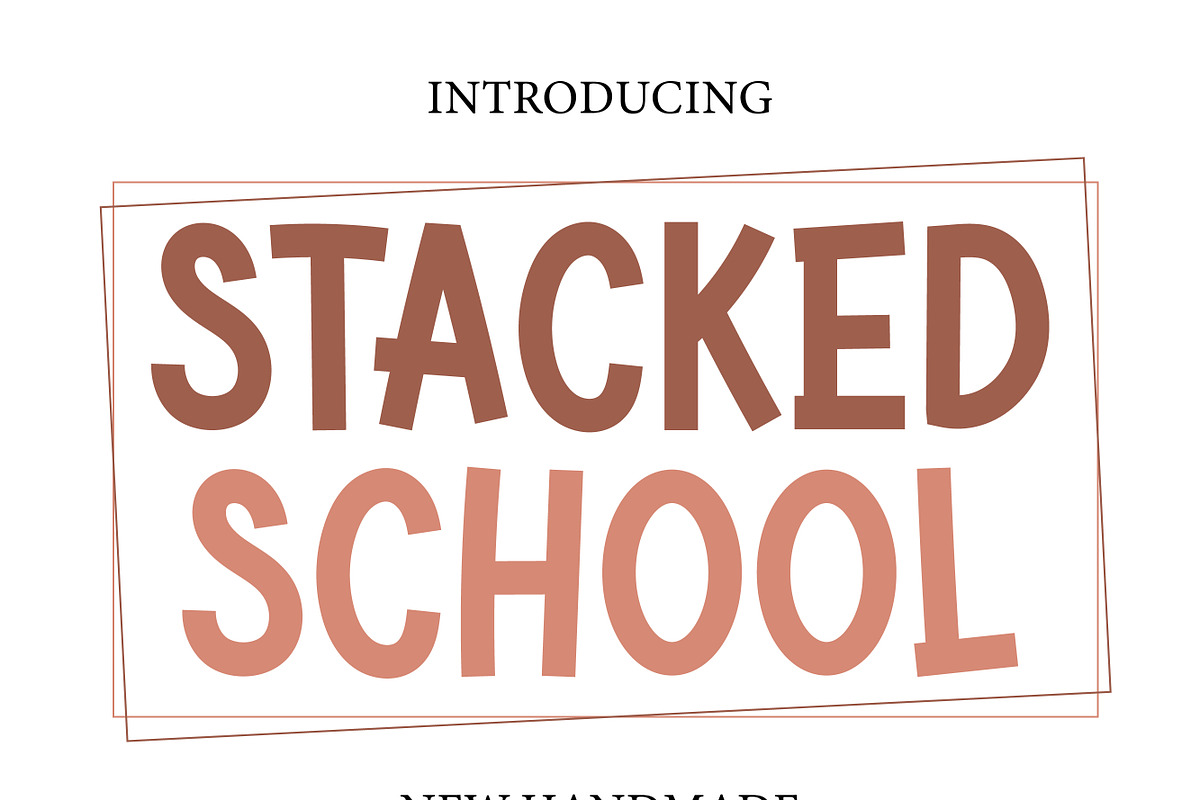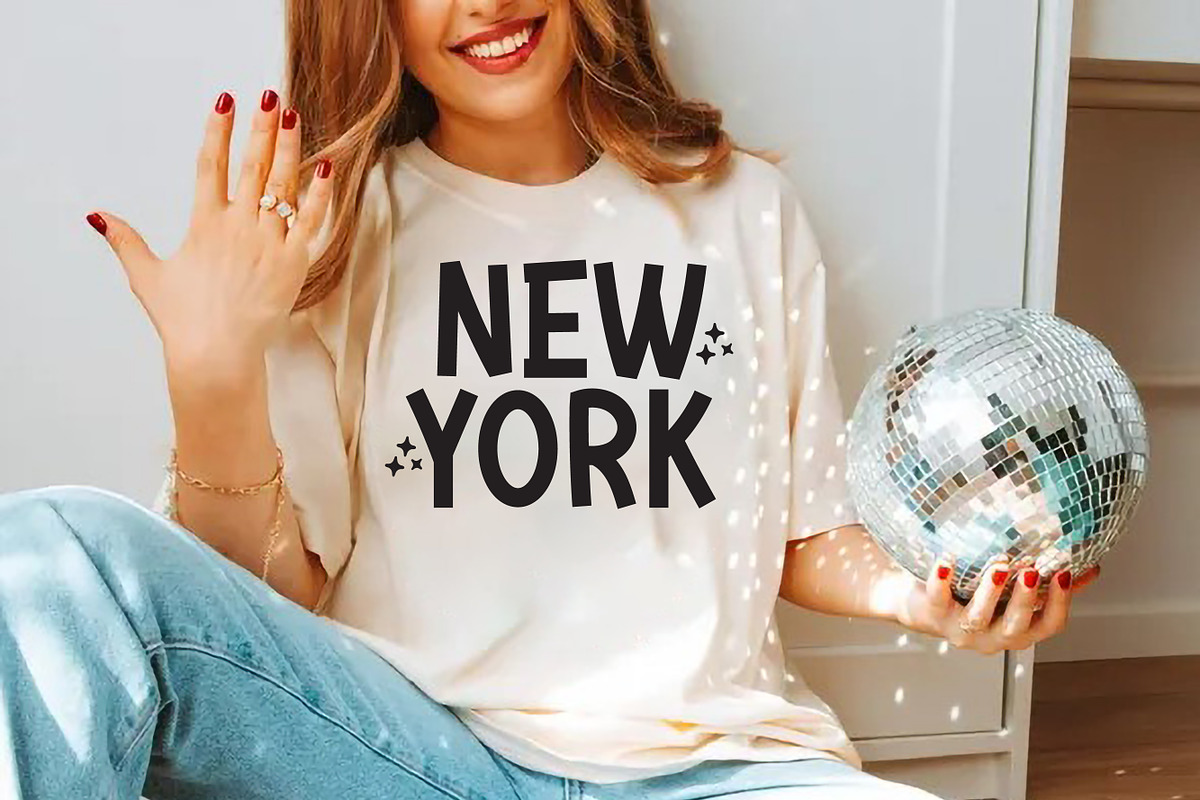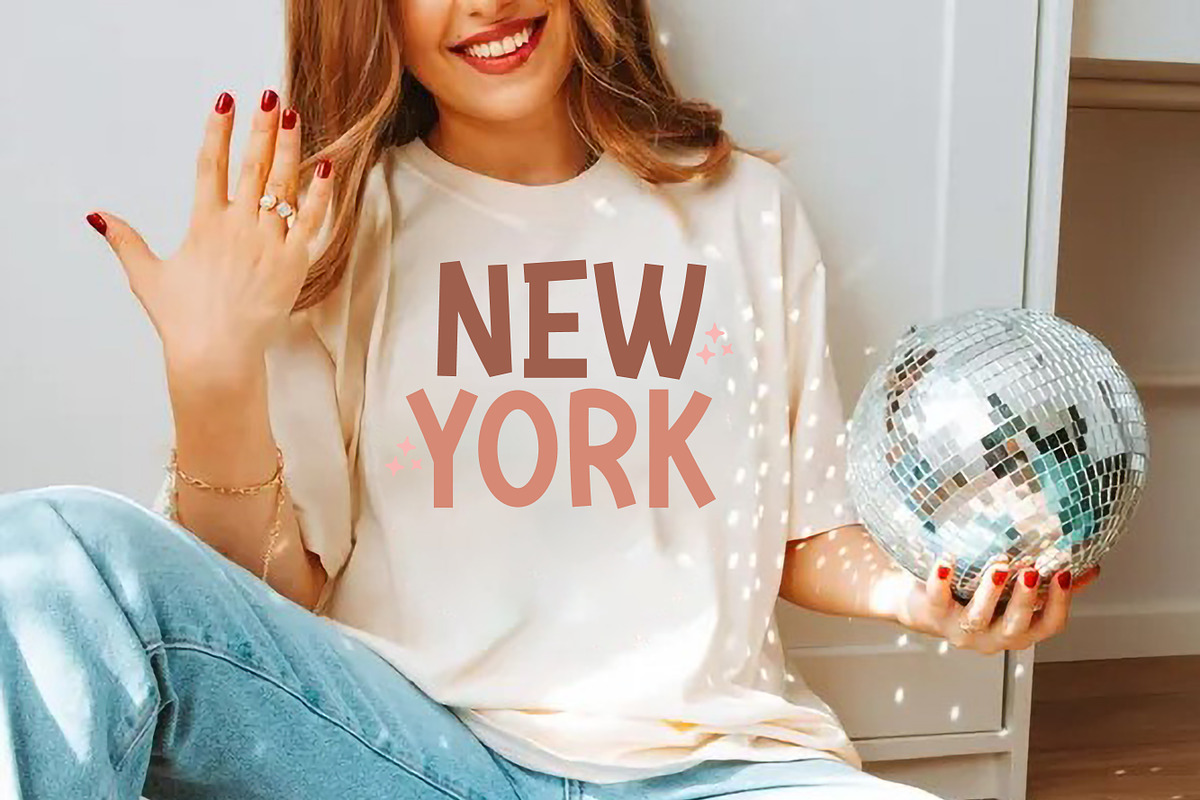
Stacked School
Stacked School is a playful and fun display font designed for kids and school projects. It features bold, stacked letters that are easy to read and add a cheerful touch to any design. Perfect for posters, invitations, and classroom materials, this font brings a sense of joy and creativity to your work!